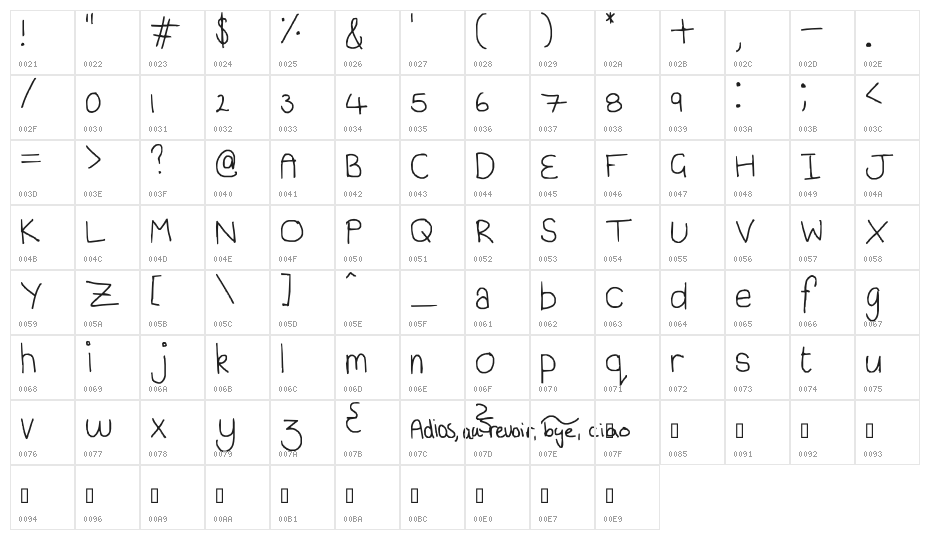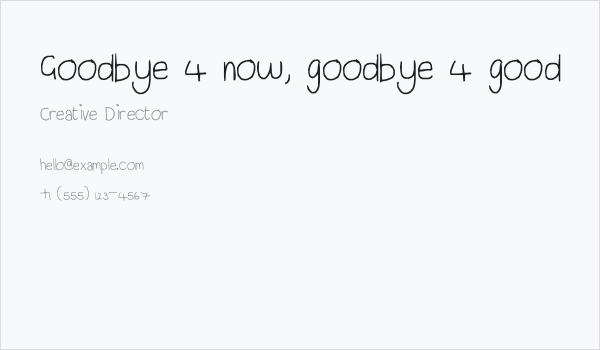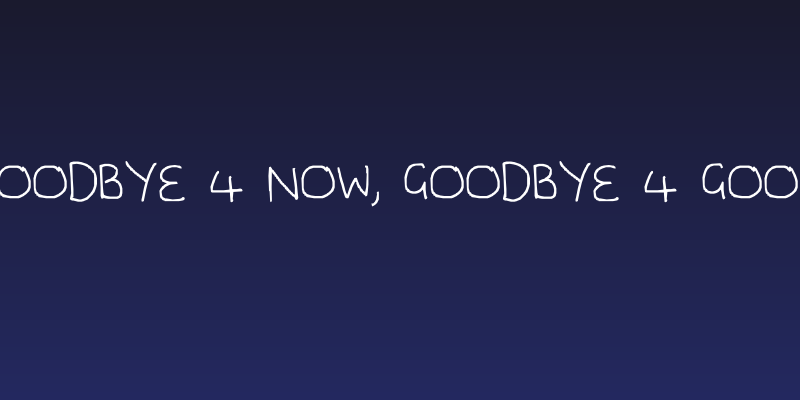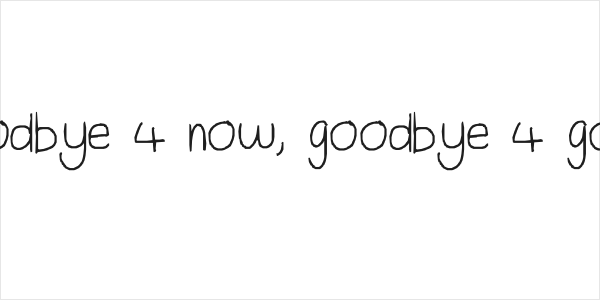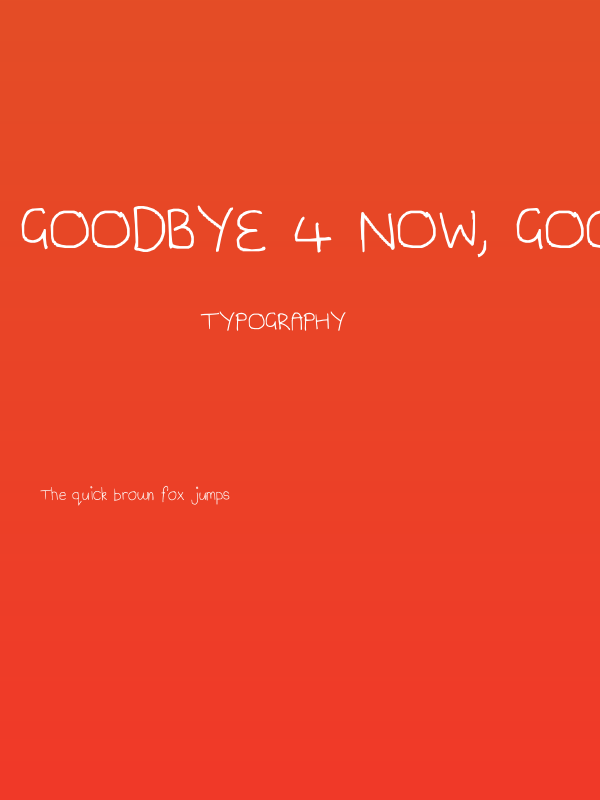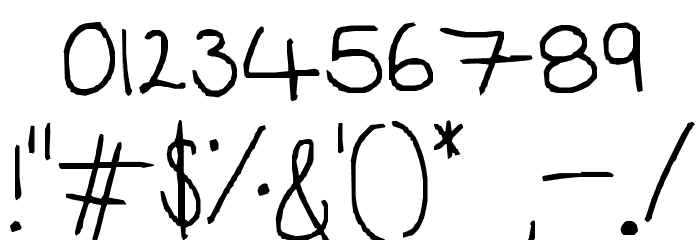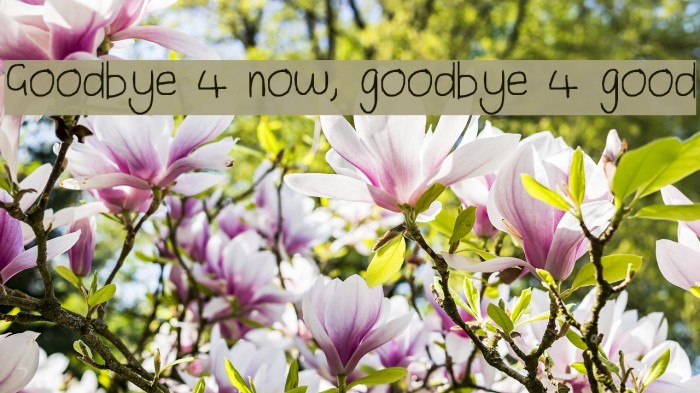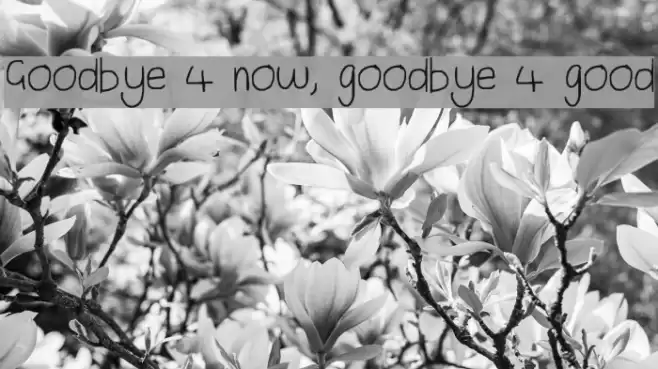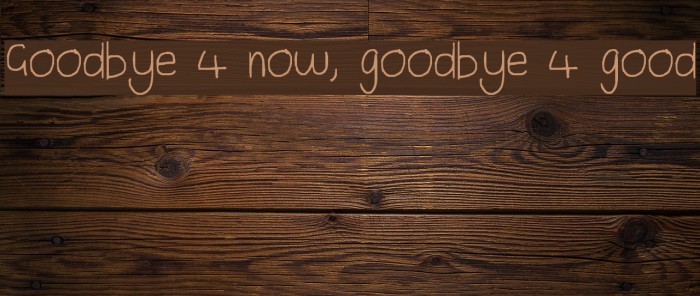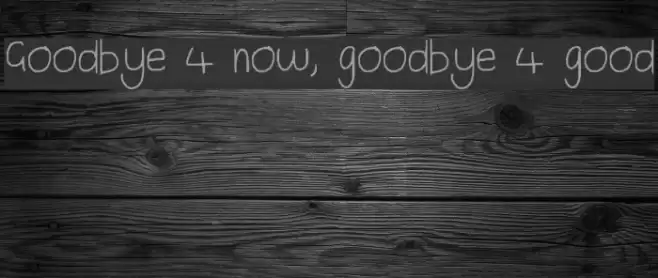
This font features a playful and casual handwritten style, characterized by its irregular and slightly uneven strokes. The letters have a whimsical, childlike quality, with varying heights and widths that give it a dynamic and informal appearance. The uppercase and lowercase letters maintain a consistent style, with rounded edges and a slightly tilted orientation, adding to its approachable and friendly feel. The numerals and special characters are crafted with the same playful touch, ensuring a cohesive look across all glyphs. This font's unique charm makes it suitable for projects that require a personal and informal touch.
| Overall Style | Casual, Playful |
| Use Case | Headlines, Informal text, Creative projects |
| Proposed Projects | Ideal for children's books, greeting cards, casual invitations, and playful branding. |